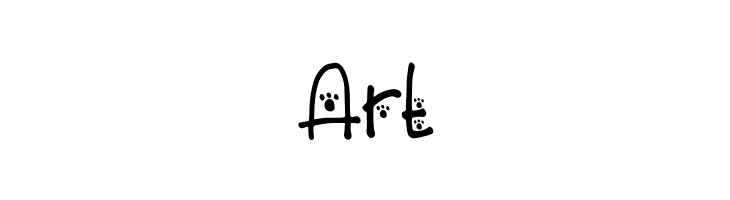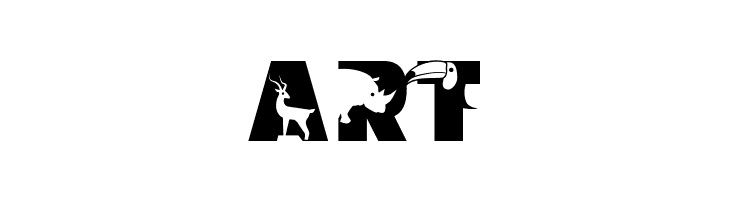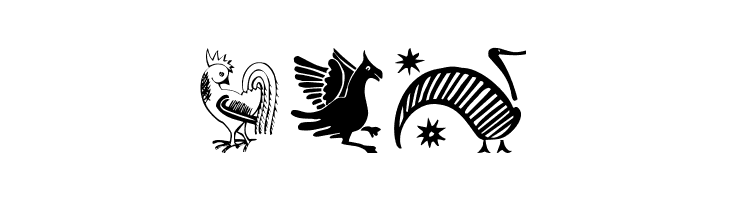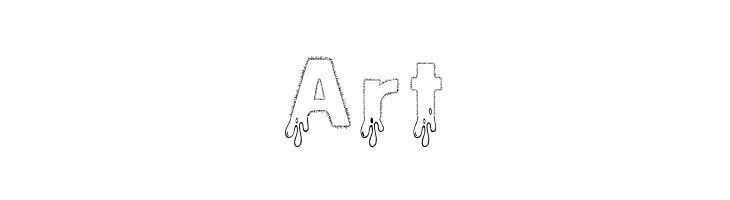
• Animal Alphabet II
• Animal Insting
( Fonts by Ditya Ananto )
A playful, animal-themed font with paw prints integrated into each character.
• Animal Kingdom Layer Two Regular
( Fonts by Anastasia Feya )
A decorative font with unique animal silhouettes for each character.
• Animal Kingdom Regular
( Fonts by Anastasia Feya )
A playful decorative font featuring animal silhouettes within each letter.
• AnimalCasualty
• AnimaliaTwo
A decorative font featuring stylized animal illustrations with intricate patterns.
• AnimalPaws
( Fonts by Bearytype )
A playful, bold font with animal paw prints on each character.
• AnimalShadows
A decorative font using animal and insect silhouettes for each character.
• AnimalsPrey-2006
Animal silhouettes create each character in a decorative, illustrative style.
• Anita Semi-square
A modern, geometric font with a semi-square structure and uniform stroke width.